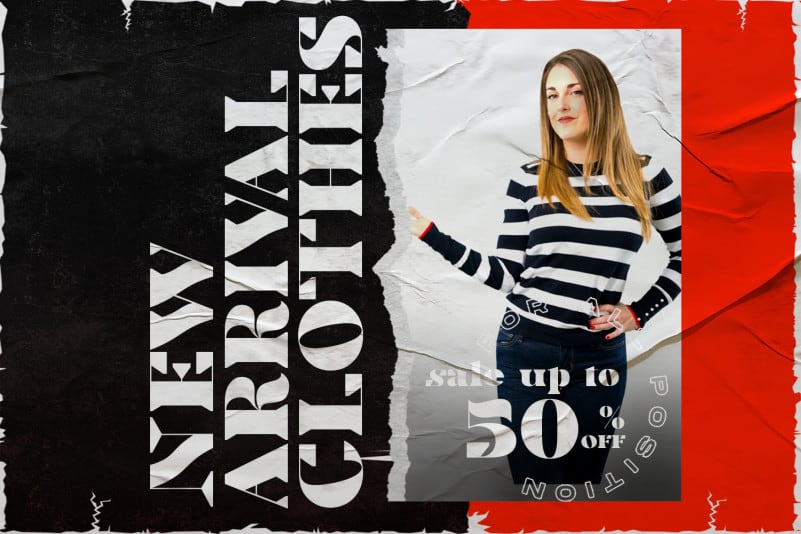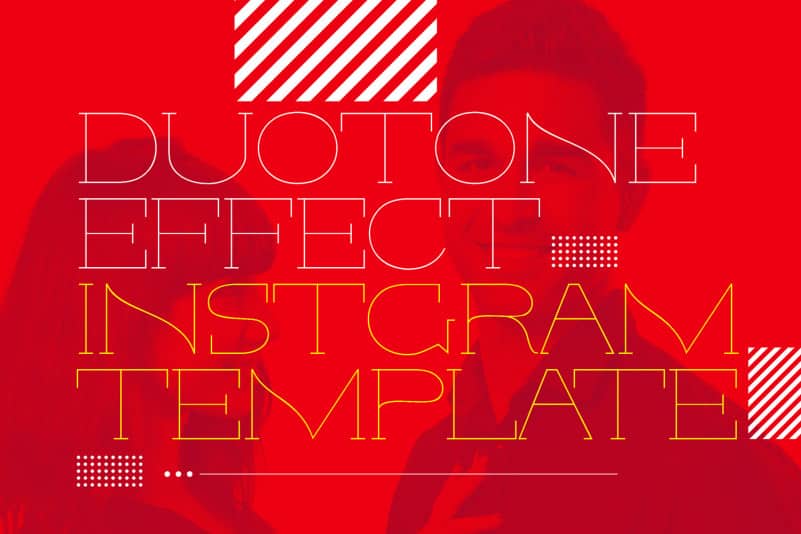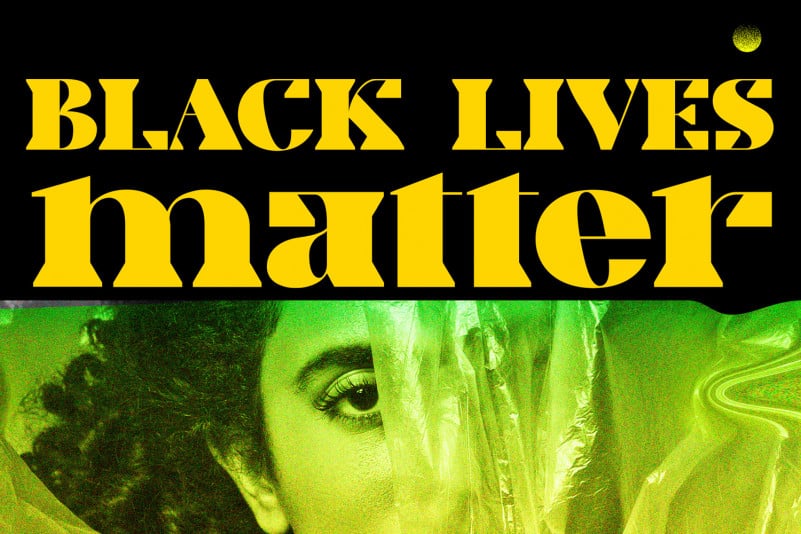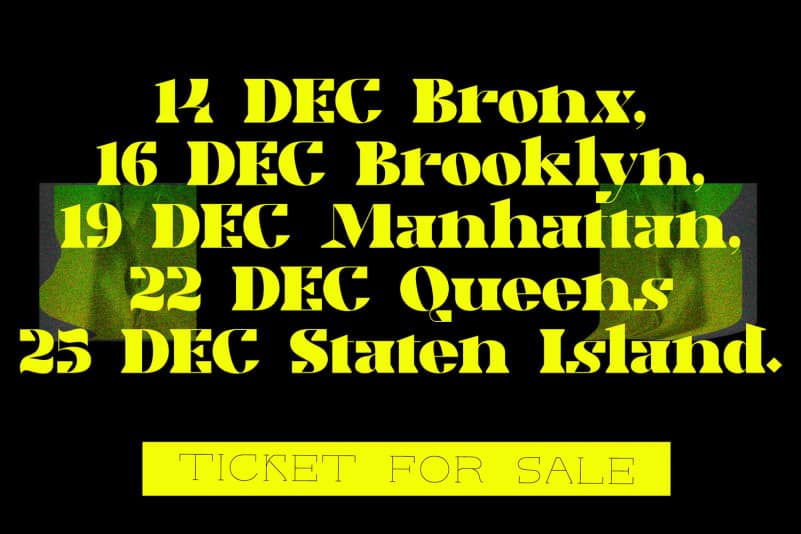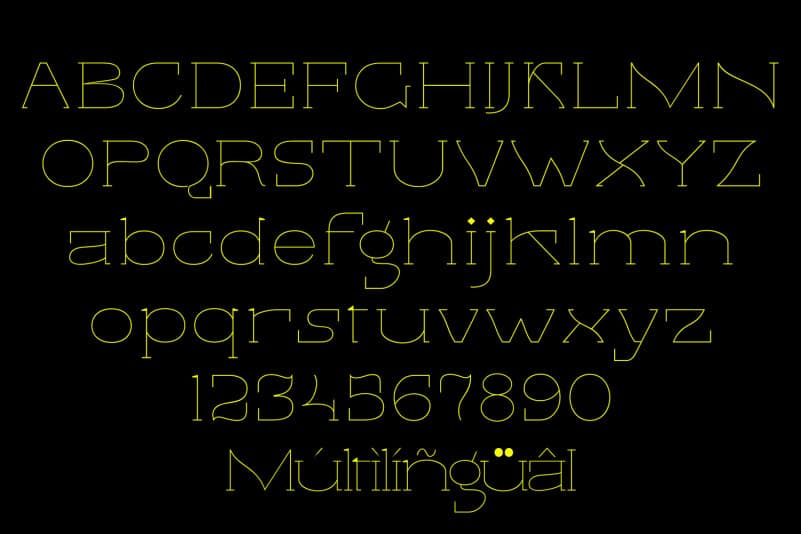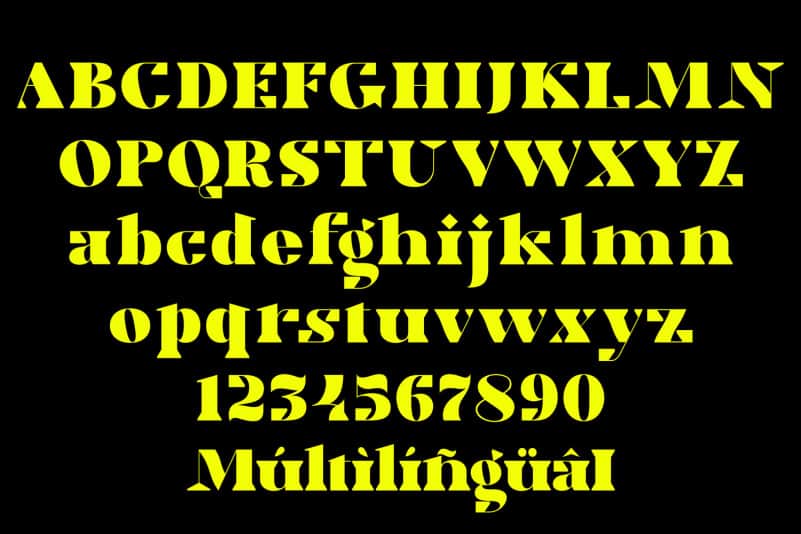
Cake Circle Font
Cake Circle Font is a modern elegant serif font, it’s a fresh, display, wedge-serif font family inspired by Transitional and Contemporary typefaces. This font has a big x-height value, modern proportions, sharp serifs and an extreme stroke contrast with a vertical stress. It’s will perfect for many project: fashion, magazines, logo, branding, photography, invitations, wedding invitation, quotes, blog header, poster, advertisements, postcard, book, websites, etc.
Cake Circle Font